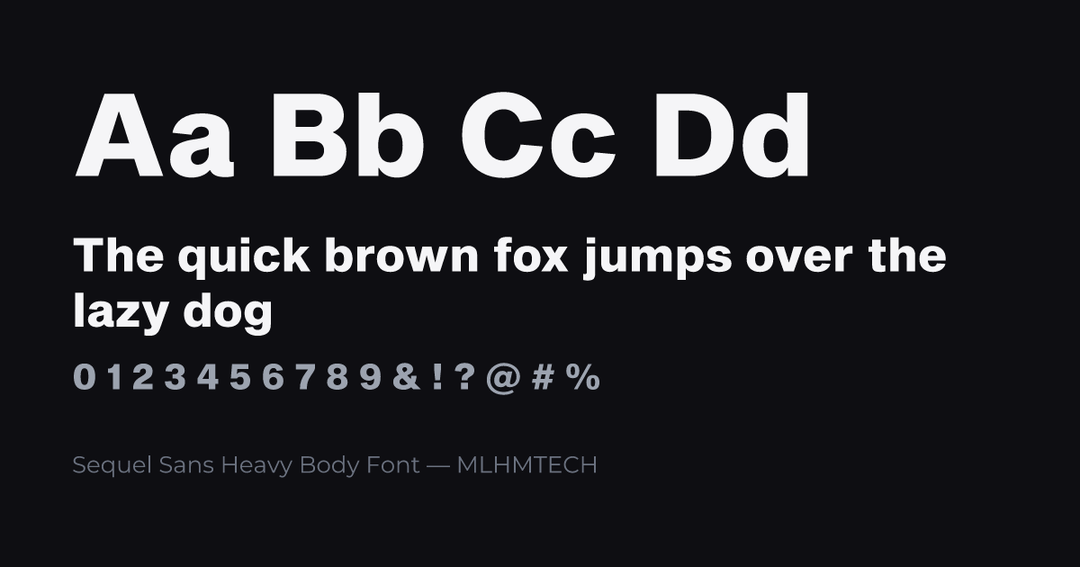
Sequel Sans Heavy Body Font
Sequel Sans Heavy is a bold, geometric sans-serif font ideal for impactful headlines and modern branding. Its clean lines ensure high legibility in video titles and graphics.
Sequel Sans Heavy Body is a striking geometric sans-serif typeface that commands attention. With its uniform stroke weights and modern proportions, it is perfect for headlines, titles, and branding projects that require a strong, confident presence.
This font is part of the Sequel Sans family, known for its versatility and contemporary feel. The Heavy weight is particularly suited for large-scale display use, such as posters, logos, and video thumbnails, where it delivers maximum impact without sacrificing readability.